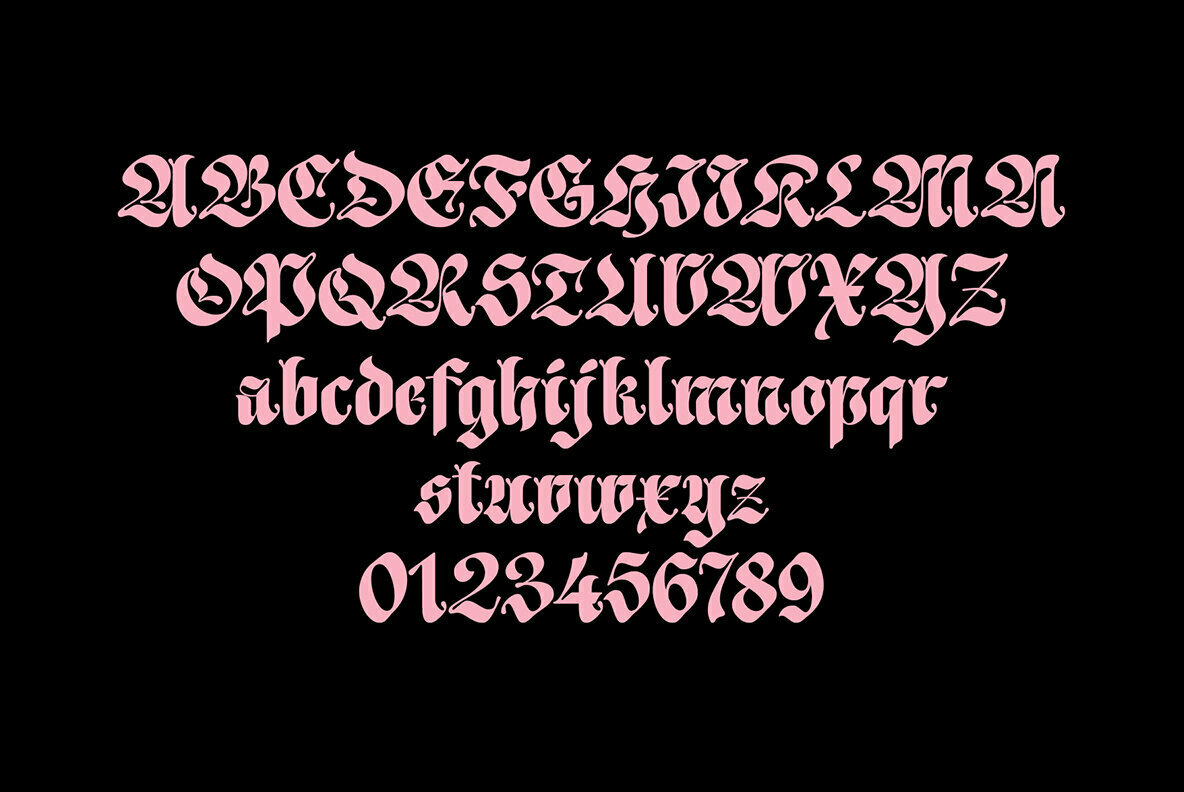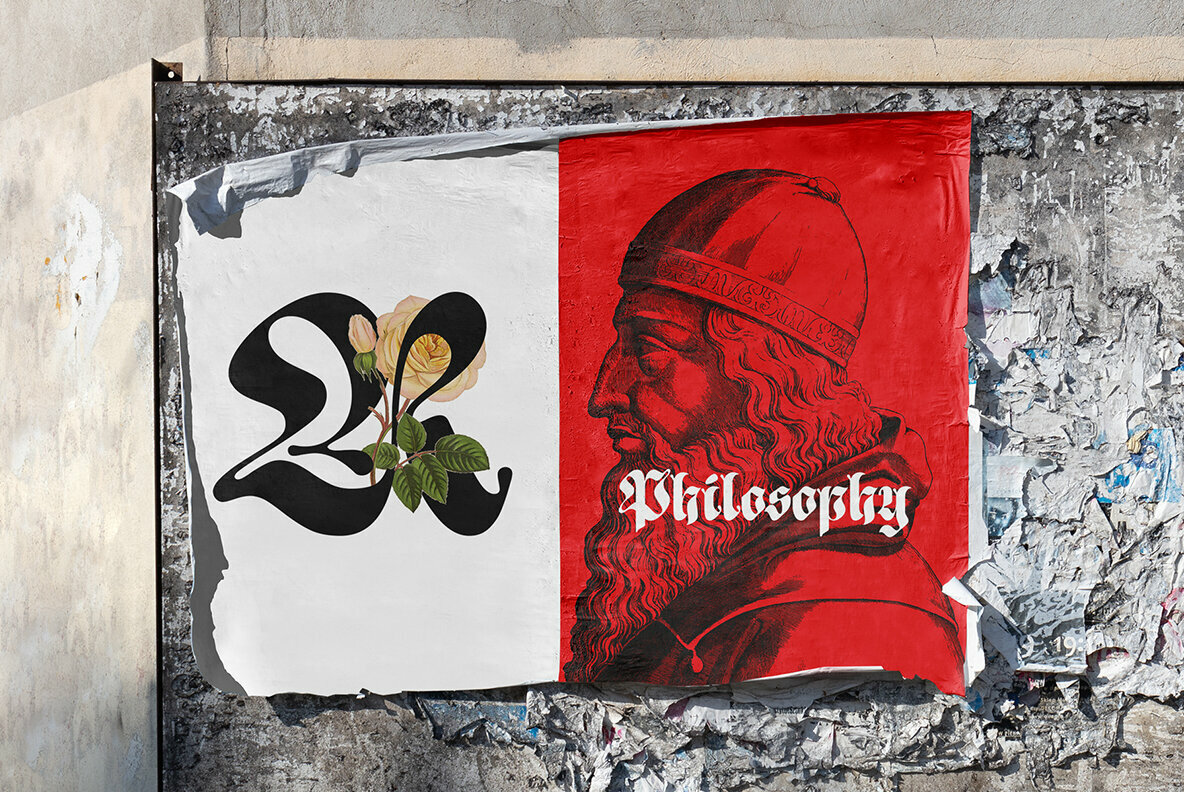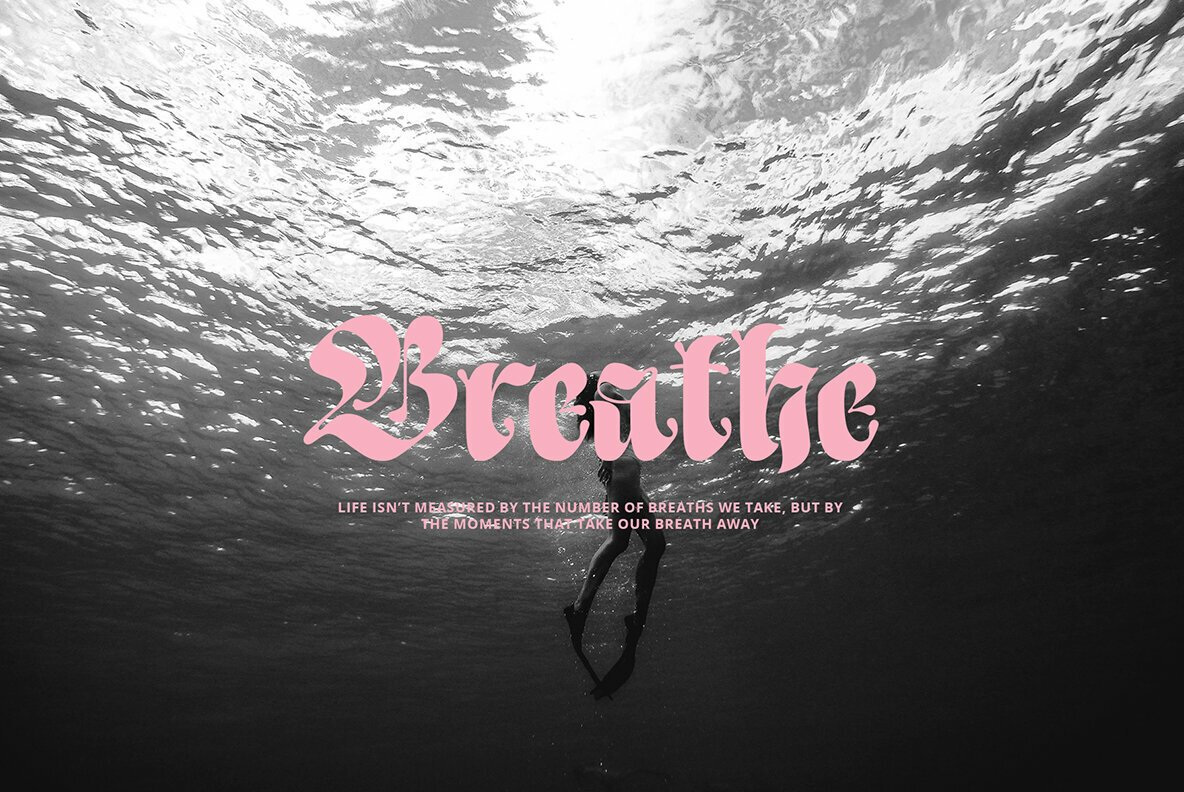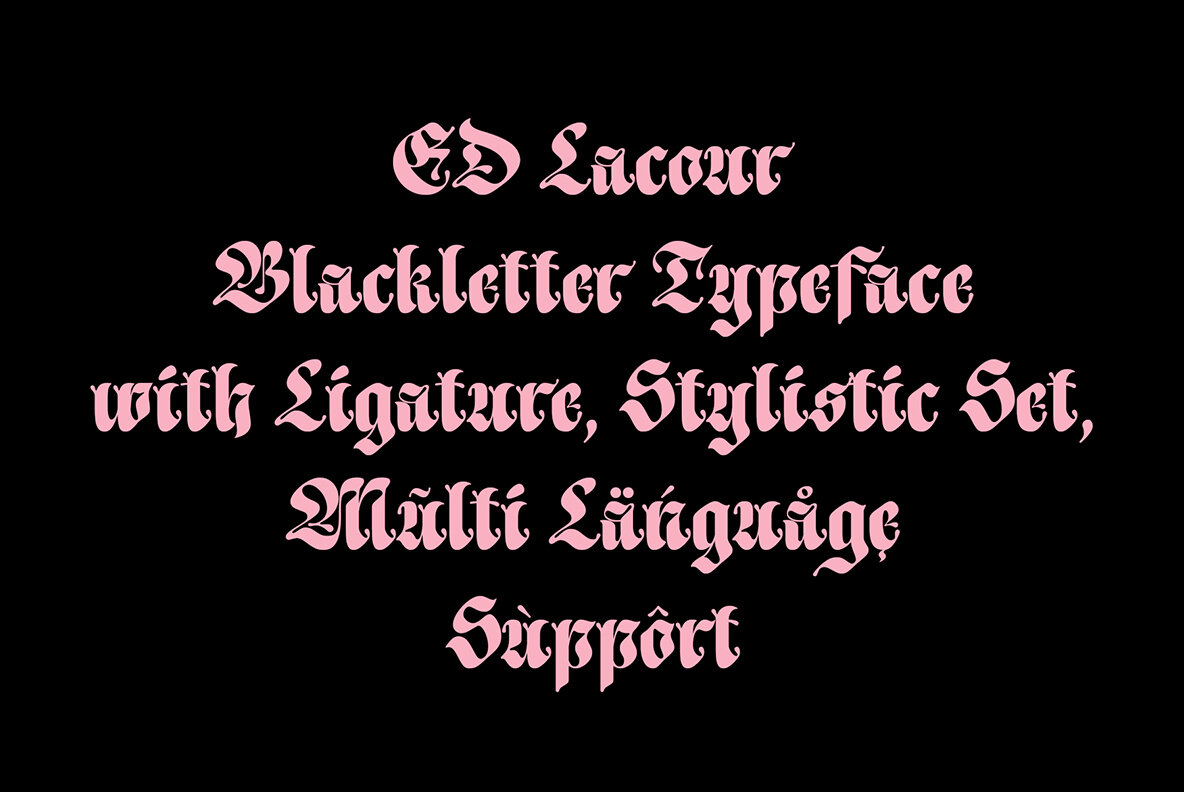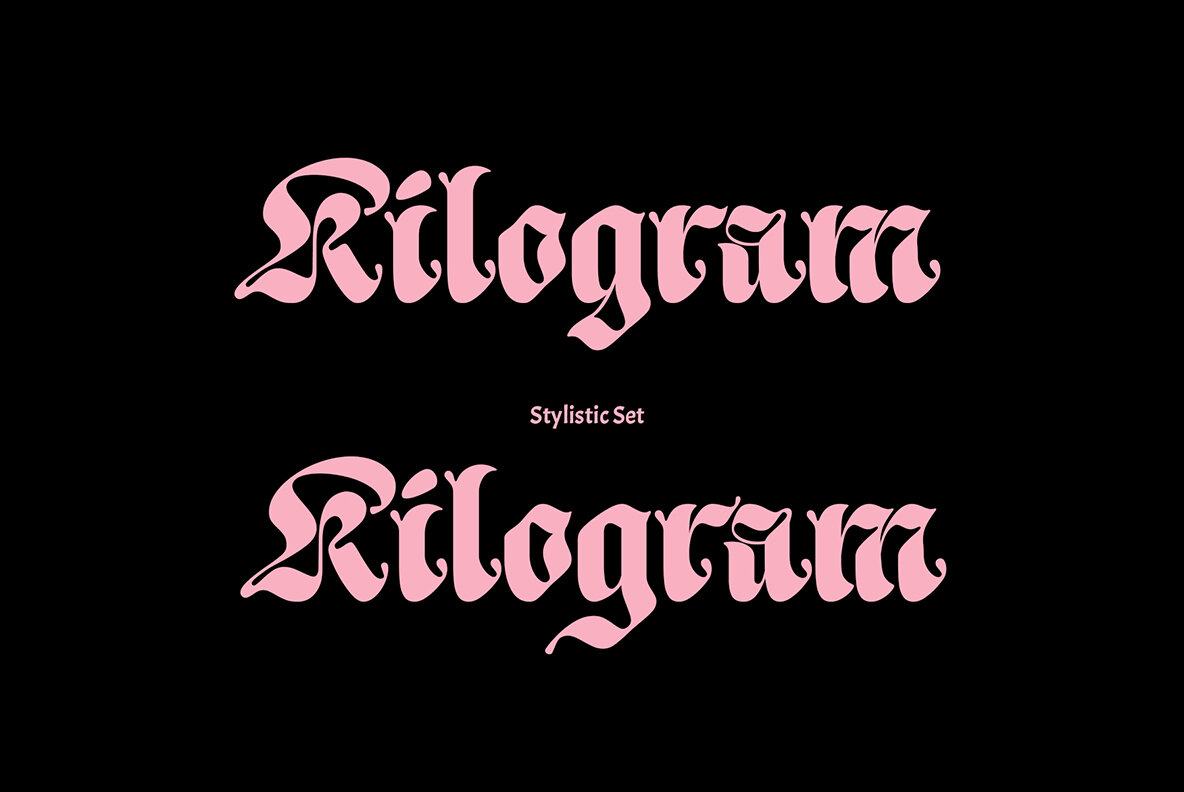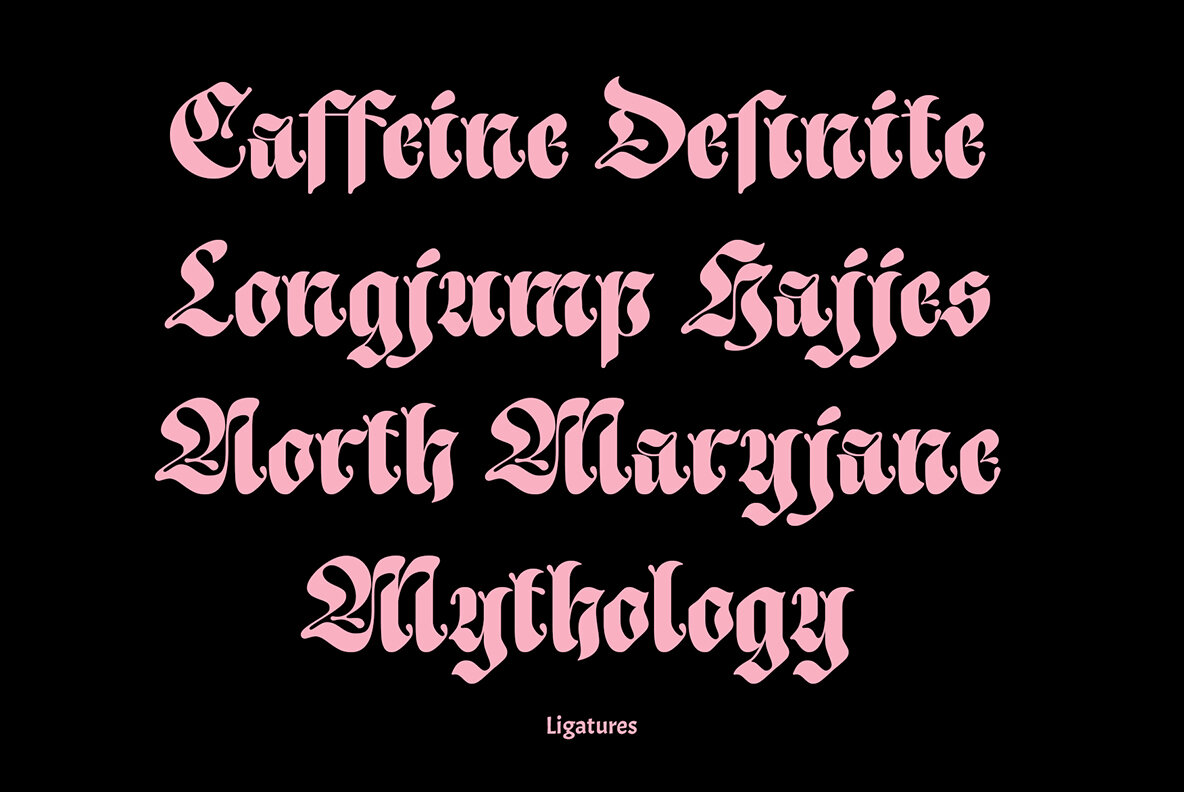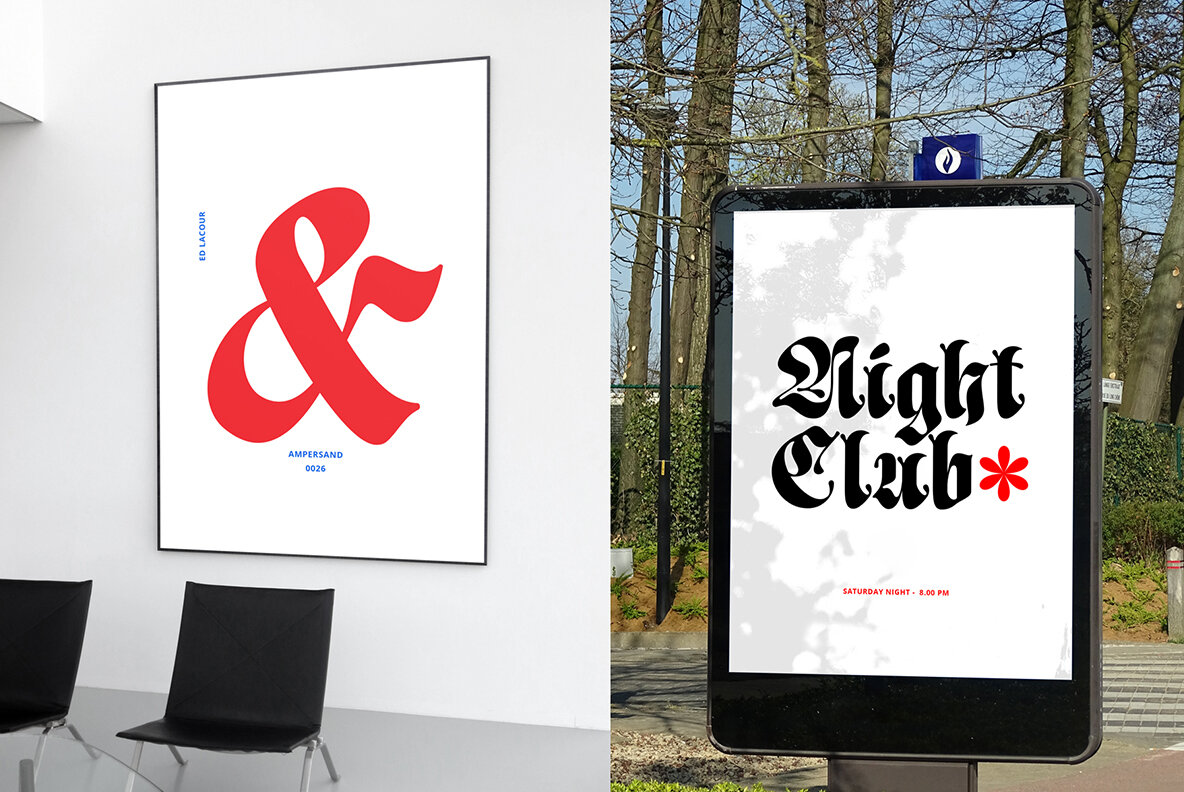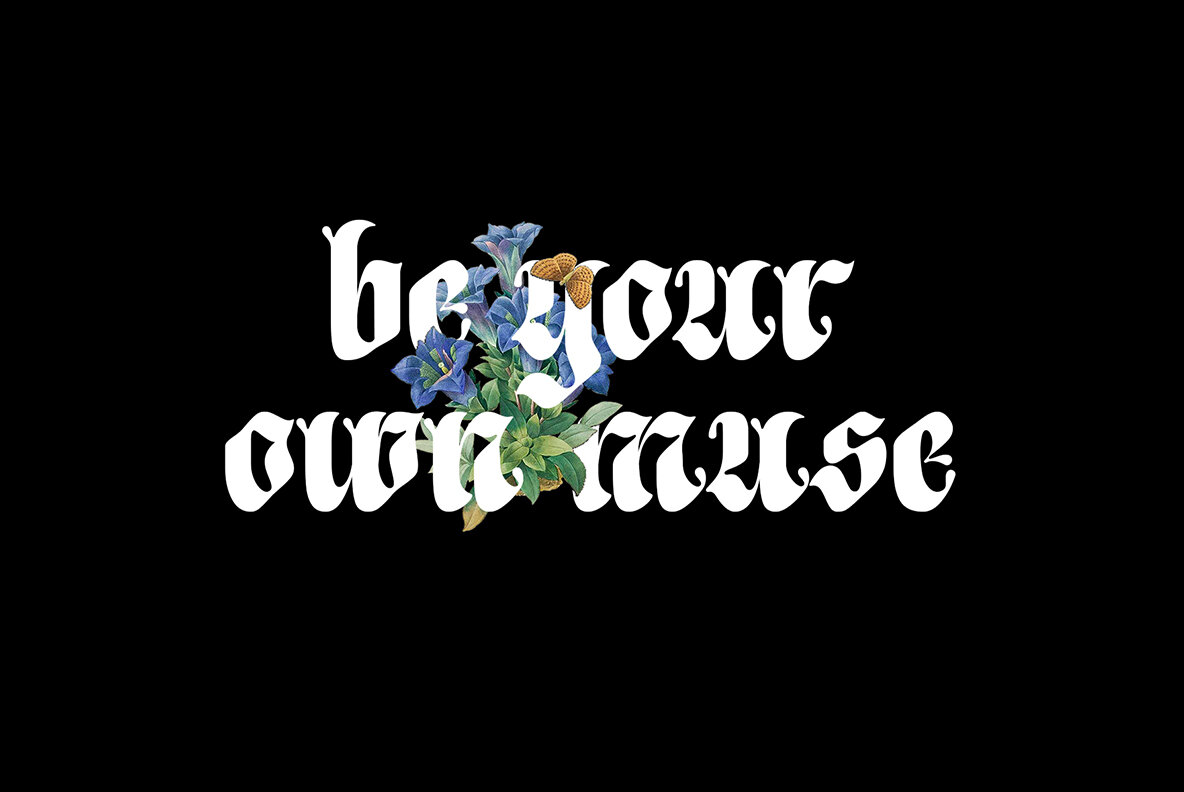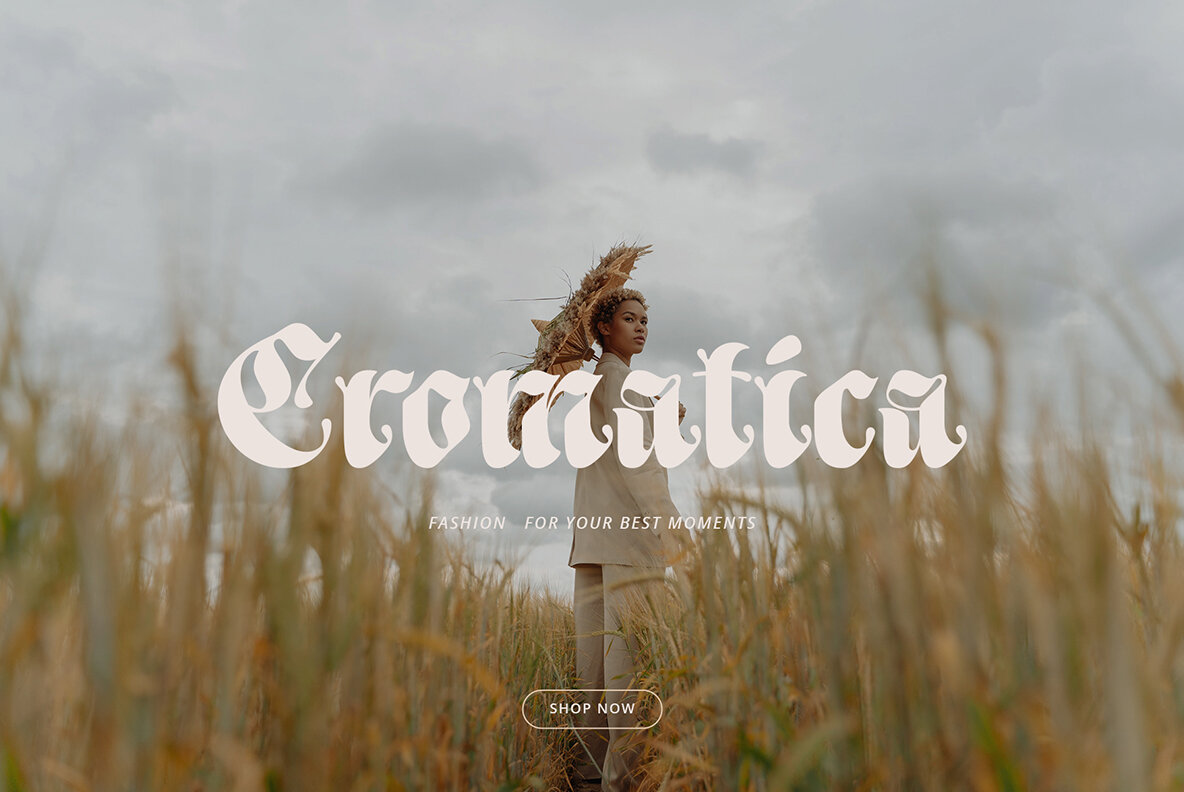
ED Lacour Font
ED Lacour is a blackletter font with rounded edges that gives it a unique and modern look.This font is equipped with several opentype features such as Ligatures, Stylistic Set, and multi-language support. You can also combine this font with other types of fonts according to your needs. This font is perfect for branding, logo design, cover design, books, magazines, apparel designs, headlines, etc.